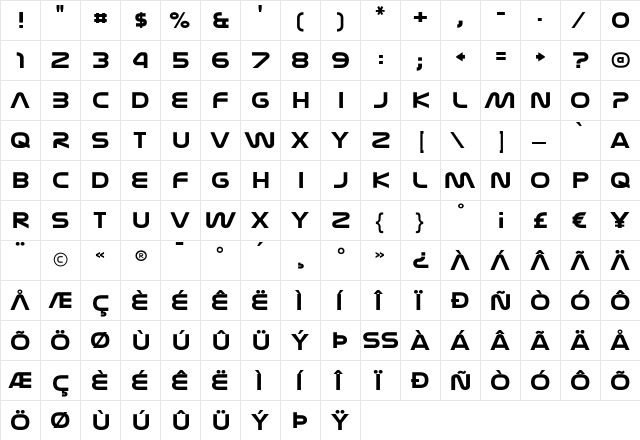
Nasalization Extended Bold
Design Context for Nasalization Extended Typeface
Nasalization Extended takes a measured approach to typography — its balanced proportions and neutral character make it a reliable workhorse for both digital and print work. Its bold stroke weight gives it real presence on the page.
Pro Tip: Pair Nasalization Extended with a font of contrasting weight or personality to build a more expressive typographic hierarchy.